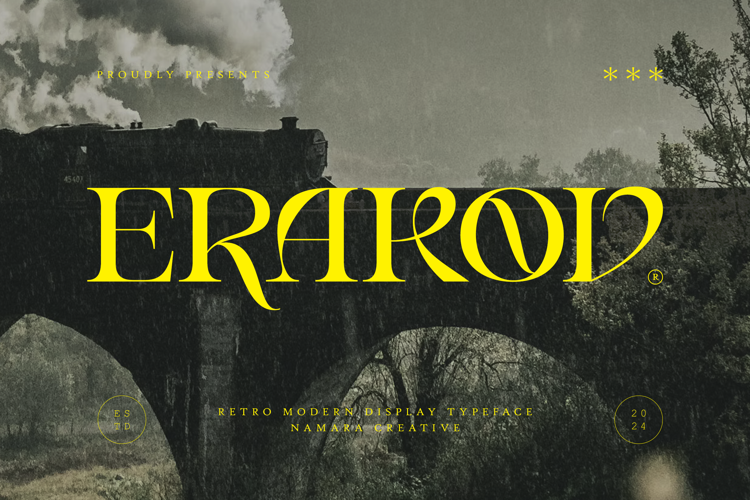
Erakov Display Font
Retro modern serif display font, Embrace a typeface that encapsulates the essence of retro charm and modern minimalism. Whether you’re looking to evoke nostalgia or convey contemporary elegance, this font is your go-to solution for achieving that perfect balance.
Make your designs unforgettable with the retro modern serif display font, where classic meets modern in the most stylish way.